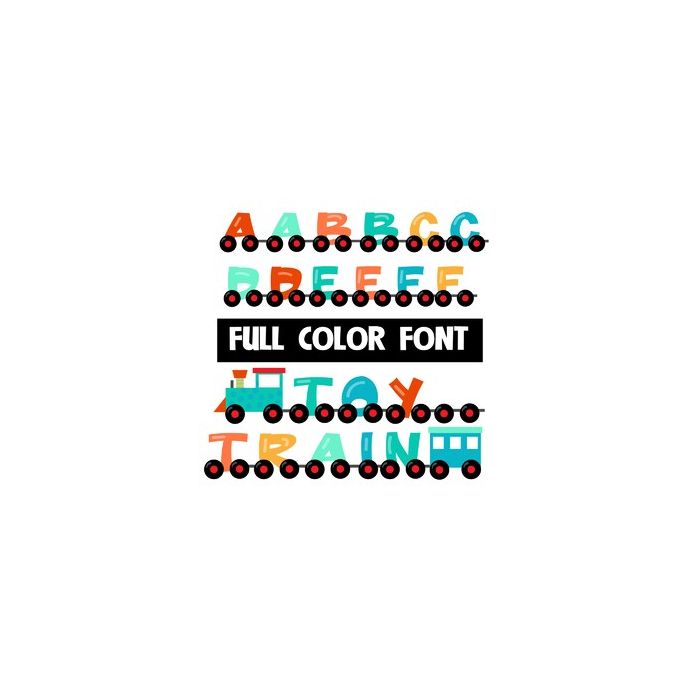
This full-color font features letters on little toy train cars. Type rectangle brackets to get a train engine and caboose and triangle brackets to get two extra blank cars and the underscore to get an empty car.